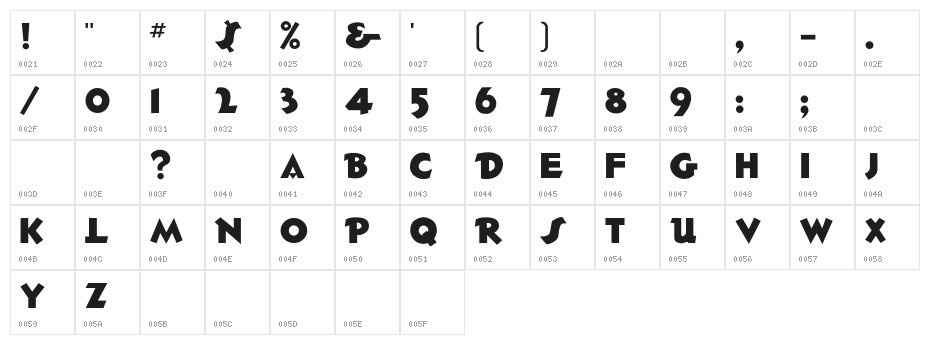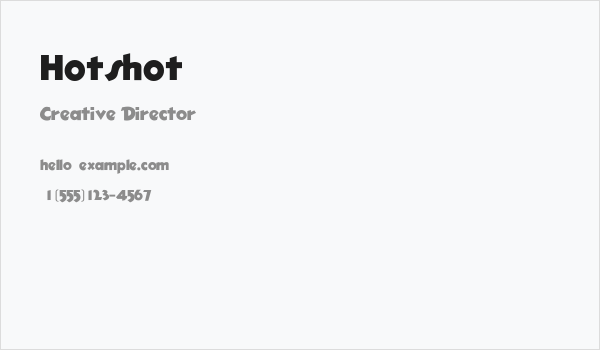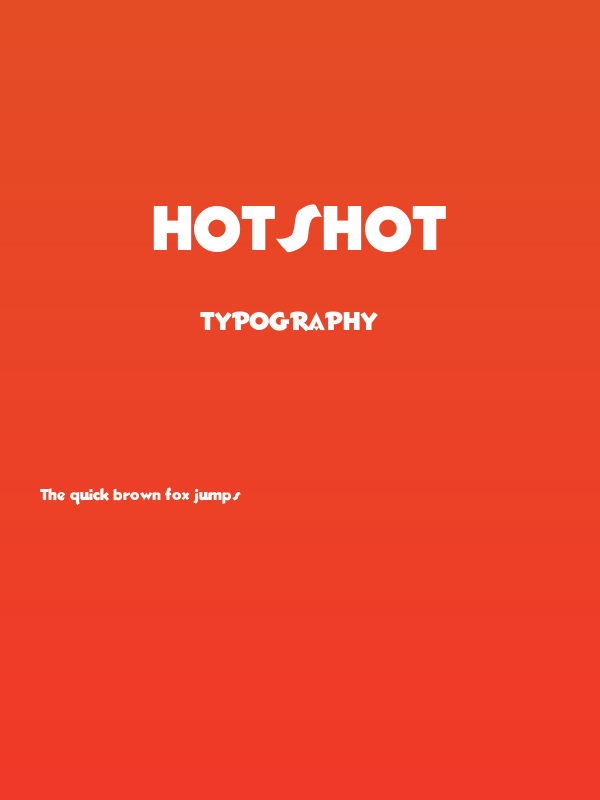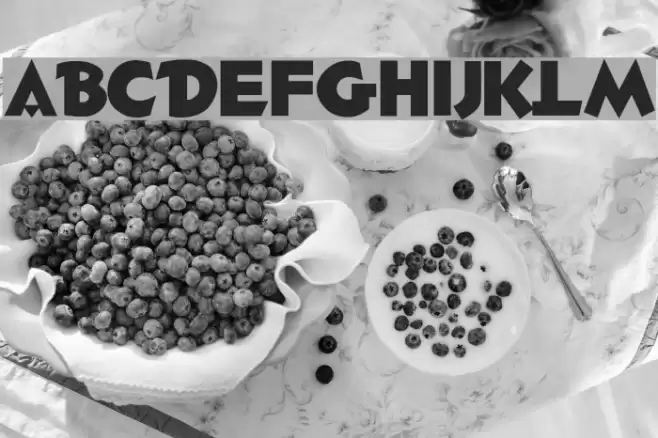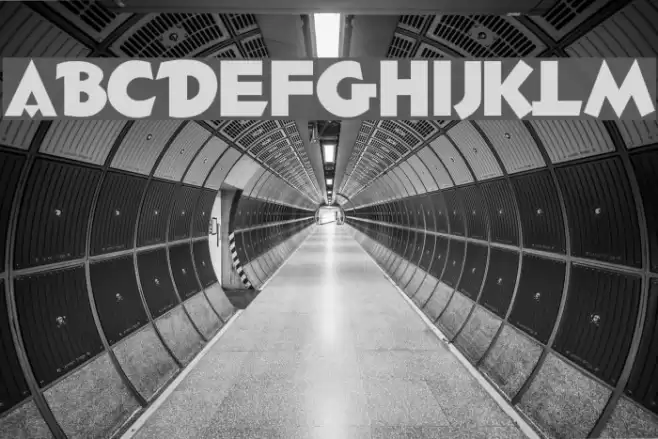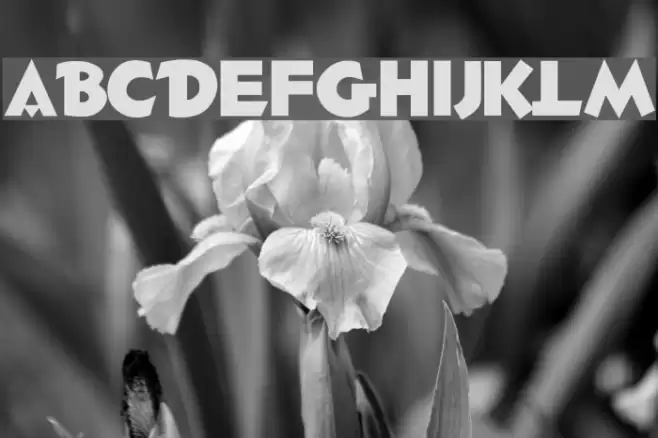
Hotshot Font
Hotshot Description
This font features a bold and dynamic style with sharp angles and a strong presence. The uppercase letters are particularly striking, with a geometric design that emphasizes their boldness. The lowercase letters maintain a consistent weight, offering a cohesive look across different text sizes. Numbers and special characters are designed with the same boldness, ensuring readability and impact. The font's unique style makes it suitable for attention-grabbing headlines and logos, where a strong visual statement is needed.
| Proposed Projects | Ideal for branding, advertising, poster design, and any project requiring a bold statement. |